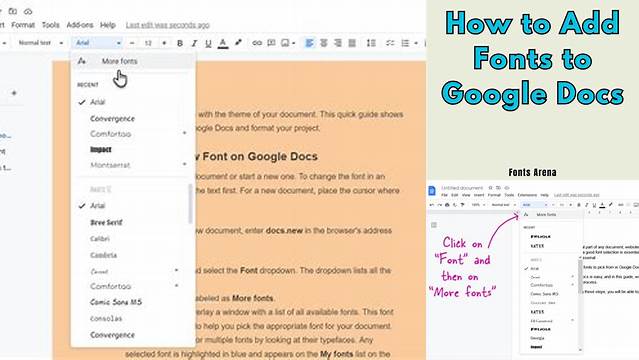
Add Fonts To Google Docs: A Reddit Guide
Hey guys! Ever feel like your Google Docs are looking a little… bland? Yeah, me too. Sometimes the default fonts just don't cut it, right? You want something with a little more personality, something that screams you. Well, you're in luck! Adding fonts to Google Docs is totally doable, and I'm here to walk you through it, especially drawing from the collective wisdom of Reddit. Let's dive in and make those documents pop!
1. Understanding Google Docs Fonts
Before we jump into adding new fonts, let's quickly chat about what's already available. Google Docs comes with a decent selection of fonts, but let's be honest, they're not always the most exciting. Knowing what's already there helps you appreciate the new fonts you're about to add even more. Think of it like this: you need to know the basics before you can truly appreciate the advanced stuff. So, take a peek at the default fonts, see what you like, and then get ready to expand your horizons. You can find the font selection in the toolbar, usually next to the font size option. Familiarize yourself with the names and styles – it’s your foundation for better typography. Remember, every great design starts with understanding the tools at your disposal!
2. Accessing the "More Fonts" Menu
The gateway to font heaven! To add new fonts, you need to access the "More Fonts" menu. It's super easy to find. Just click on the font dropdown menu in your Google Docs toolbar. Scroll all the way down, and you'll see "More fonts" at the bottom. Click it, and bam! You're in. This opens up a whole new world of typographic possibilities. The "More fonts" menu is where you'll browse, search, and add fonts to your Google Docs. Think of it as your personal font library, just waiting to be explored. It’s a straightforward process, but it's the key to unlocking a more personalized and visually appealing document. So, don't be shy, click that "More fonts" button and let the adventure begin!
3. Browsing Available Fonts
Okay, now for the fun part: browsing! The "More Fonts" menu shows you a huge list of fonts. You can scroll through them all (good luck with that, there are tons!), or you can use the search bar to find something specific. Google has categorized the fonts, which makes browsing easier if you know what type of font you want. Are you looking for a serif font for a formal document? Or maybe a sans-serif for something modern and clean? Play around, experiment, and see what catches your eye. Remember, the goal is to find fonts that enhance your document and make it more readable and visually appealing. The world of typography is vast and exciting, so take your time and enjoy the journey of discovery!
4. Searching for Specific Fonts
Got a particular font in mind? The search bar is your best friend. Just type in the name of the font, and Google Docs will find it for you (if it's available, of course). This is super handy if you've seen a font you like somewhere else and want to use it in your document. Keep in mind that not all fonts are available on Google Docs, but the selection is pretty extensive. If you can't find the exact font you're looking for, try searching for something similar. There are often variations and alternatives that can achieve the same look and feel. So, don't be afraid to experiment and explore! The search bar is your shortcut to typographic bliss.
5. Adding Fonts to "My Fonts"
Found a font you love? Awesome! Now you need to add it to your "My Fonts" list. In the "More Fonts" menu, simply click on the font you want to add. A little checkmark will appear next to it, indicating that it's been added to your collection. Your “My fonts” section is a curated list of fonts that you have selected for easy access. This saves you time from having to search for your favorite fonts every time you start a new document. It's like creating your own personal font library within Google Docs. Once you've added a font, it will appear in the font dropdown menu in your document, ready for you to use. It’s a simple click, but it makes a world of difference in streamlining your workflow and keeping your favorite fonts at your fingertips!
6. Using Your New Fonts
Alright, the moment of truth! Your new fonts are added, now what? Simply go back to your document, select the text you want to change, and choose your new font from the font dropdown menu. Voila! Your text is now rocking your chosen font. Remember, readability is key. Make sure your font choice complements your content and doesn't make it harder to read. Experiment with different font sizes and styles to achieve the perfect look. Using your new fonts is all about expressing your creativity and making your document stand out. So, go ahead, play around, and have fun! Your documents are about to get a whole lot more stylish.
7. Font Pairing Tips
Font pairing is an art! Combining different fonts can create a visually appealing and professional look. A good rule of thumb is to pair a serif font with a sans-serif font. For example, you could use a serif font for your headings and a sans-serif font for your body text. This creates contrast and makes your document easier to read. You can also use different weights and styles of the same font family to create visual interest. Experiment with different combinations and see what works best for you. There are tons of resources online that offer font pairing suggestions, so don't be afraid to do some research. With a little practice, you'll be a font pairing pro in no time!
8. Removing Fonts from "My Fonts"
Changed your mind about a font? No problem! You can easily remove fonts from your "My Fonts" list. Just go back to the "More Fonts" menu, and uncheck the font you want to remove. It will disappear from your "My Fonts" list, and you're good to go. This is useful if you've added a lot of fonts and want to declutter your list. It also allows you to keep your font selection fresh and relevant. Removing fonts is just as easy as adding them, so don't be afraid to experiment and change things up. Your font library should be a reflection of your current needs and preferences. So, keep it tidy and up-to-date!
9. Google Docs Font Limitations
While Google Docs offers a good selection of fonts, there are some limitations. You can't upload your own custom fonts directly to Google Docs. This can be a bummer if you have a specific font that you want to use. However, there are workarounds. You can use Google Fonts, which is a free library of fonts that are compatible with Google Docs. You can also use a third-party app to convert your custom font to a Google Font. Keep in mind that some fonts may not display correctly in Google Docs, so it's always a good idea to test them out before you start working on your document. Despite these limitations, Google Docs offers a versatile and user-friendly font management system.
10. Using Google Fonts
Google Fonts is a treasure trove of free, open-source fonts that you can use in your Google Docs. The best part? They're all compatible with Google Docs, so you don't have to worry about any formatting issues. To access Google Fonts, simply go to the "More Fonts" menu in Google Docs. The fonts listed there are all Google Fonts. You can browse, search, and add them to your "My Fonts" list just like any other font. Google Fonts offers a wide variety of styles and weights, so you're sure to find something that suits your needs. Plus, they're constantly adding new fonts to the library, so there's always something new to discover. Using Google Fonts is a great way to expand your font options and create visually stunning documents.
11. Reddit's Favorite Google Docs Fonts
Reddit users have some strong opinions about fonts! Some popular choices include Montserrat, Open Sans, and Lato. These fonts are clean, modern, and easy to read. They're also versatile enough to be used in a variety of documents. Reddit is a great place to get font recommendations and see how other people are using fonts in their Google Docs. You can also find tips and tricks for font pairing and formatting. So, if you're looking for inspiration, head over to Reddit and see what the community has to say. You might just discover your new favorite font!
12. Troubleshooting Font Issues
Sometimes, fonts don't display correctly in Google Docs. This can be due to a variety of reasons, such as font compatibility issues or browser problems. If you're experiencing font issues, try clearing your browser's cache and cookies. You can also try using a different browser or updating your current browser to the latest version. If the problem persists, try using a different font or contacting Google Docs support for assistance. Troubleshooting font issues can be frustrating, but with a little patience, you can usually find a solution. Remember, the goal is to create a visually appealing and readable document, so don't give up!
13. Font Size and Readability
Font size plays a crucial role in readability. A font that's too small can be difficult to read, while a font that's too large can be distracting. The ideal font size depends on the font itself and the context of your document. A good rule of thumb is to use a font size of 11 or 12 points for body text. For headings, you can use a larger font size, such as 14 or 16 points. Experiment with different font sizes and see what works best for you. You can also use the zoom feature in Google Docs to adjust the size of the text on your screen. Remember, readability is key, so make sure your font size is appropriate for your audience.
14. Font Styles: Bold, Italic, and Underline
Font styles like bold, italic, and underline can be used to emphasize certain words or phrases in your document. Bold is used to make text stand out, italic is used to indicate emphasis or foreign words, and underline is used to highlight important information. However, it's important to use these styles sparingly. Overusing them can make your document look cluttered and unprofessional. Use bold and italic to draw attention to key words or phrases, and use underline to highlight links or important points. When used correctly, font styles can enhance your document and make it more engaging.
15. Customizing Default Fonts
Google Docs allows you to customize the default fonts for your documents. This means that you can set your preferred font, font size, and font style, and Google Docs will automatically use those settings for all new documents. To customize your default fonts, go to the "Tools" menu and select "Preferences." In the Preferences dialog box, you can choose your default font, font size, and font style. This is a great way to save time and ensure that all of your documents have a consistent look and feel. Customizing your default fonts is a simple but effective way to personalize your Google Docs experience.
16. Using Fonts for Different Document Types
The best font to use depends on the type of document you're creating. For formal documents, such as reports and essays, it's best to use a serif font like Times New Roman or Georgia. These fonts are classic and professional. For informal documents, such as emails and memos, you can use a sans-serif font like Arial or Helvetica. These fonts are modern and clean. For creative documents, such as brochures and flyers, you can use a more decorative font. However, it's important to choose a font that's easy to read and appropriate for your audience. When choosing a font, consider the purpose of your document and the message you want to convey.
17. The Importance of Typography
Typography is the art and technique of arranging type to make written language legible, readable, and appealing when displayed. Good typography can enhance your document and make it more engaging, while bad typography can detract from your message and make it difficult to read. When choosing fonts, consider the overall design of your document and the message you want to convey. Pay attention to font size, font style, and font pairing. Use white space effectively to create visual balance and improve readability. Typography is an essential element of design, so take the time to learn the basics and apply them to your Google Docs.
18. Exploring Font Categories: Serif, Sans-Serif, and More
Fonts are typically categorized into different types based on their characteristics. The two main categories are serif and sans-serif. Serif fonts have small decorative strokes at the end of each letter, while sans-serif fonts do not. Serif fonts are typically used for formal documents, while sans-serif fonts are used for informal documents. There are also other font categories, such as script fonts, which are designed to resemble handwriting, and decorative fonts, which are used for creative projects. Each font category has its own unique look and feel, so experiment with different categories to find the perfect font for your document. Understanding font categories is essential for choosing the right font for your needs.
19. Font Licensing and Usage Rights
When using fonts, it's important to be aware of font licensing and usage rights. Some fonts are free to use for both personal and commercial purposes, while others require a license. Before using a font, check the license to make sure you're allowed to use it for your intended purpose. You can usually find font licensing information on the font designer's website or in the font's documentation. Using a font without the proper license can result in legal consequences, so it's important to do your research and comply with the terms of the license. Font licensing can be complex, but it's essential for respecting the rights of font designers and avoiding legal issues.
20. Using Font Management Tools
Font management tools can help you organize and manage your fonts. These tools allow you to preview fonts, activate and deactivate fonts, and resolve font conflicts. They can also help you find and install new fonts. There are many different font management tools available, both free and paid. Some popular options include FontBase, NexusFont, and RightFont. Using a font management tool can save you time and effort when working with fonts, especially if you have a large font library. Font management tools are a valuable asset for anyone who works with fonts regularly.
21. Embedding Fonts in PDFs
When creating a PDF document, it's important to embed the fonts in the PDF file. This ensures that the fonts will display correctly on any computer, even if the user doesn't have the fonts installed. To embed fonts in a PDF, use the PDF creation tool's font embedding option. The exact steps vary depending on the tool you're using, but it's usually a simple process. Embedding fonts is essential for ensuring that your PDF documents look their best on all devices. Without font embedding, your documents may display with incorrect fonts or missing characters.
22. The Psychology of Fonts
Fonts can evoke different emotions and associations. Serif fonts often convey a sense of tradition and authority, while sans-serif fonts convey a sense of modernity and simplicity. Script fonts can evoke a sense of elegance and sophistication, while decorative fonts can evoke a sense of fun and creativity. When choosing fonts, consider the psychological impact you want to have on your audience. Choose fonts that align with your brand and the message you want to convey. Understanding the psychology of fonts can help you create more effective and engaging documents.
23. Font Alternatives and Similar Styles
If you can't find the exact font you're looking for, you can often find font alternatives that have a similar style. There are many websites and tools that can help you find font alternatives. These tools allow you to search for fonts based on their characteristics, such as serif or sans-serif, and they will suggest similar fonts that you can use. Using font alternatives is a great way to expand your font options and find the perfect font for your document. Don't be afraid to experiment with different font alternatives and see what works best for you.
24. Designing with Limited Font Choices
Even with a limited selection of fonts, you can still create visually appealing and effective designs. The key is to use the fonts you have creatively and strategically. Experiment with different font sizes, font styles, and font pairings. Use white space effectively to create visual balance and improve readability. Focus on the overall design of your document and the message you want to convey. With a little creativity, you can create stunning designs even with limited font choices. Remember, design is about more than just fonts; it's about creating a cohesive and engaging visual experience.
25. Creating a Font Style Guide
A font style guide is a document that outlines the fonts you use in your documents and how you use them. It specifies the font family, font size, font style, and font color for different elements of your document, such as headings, body text, and captions. Creating a font style guide ensures consistency in your documents and helps to maintain a professional look and feel. It also makes it easier for others to collaborate on your documents, as they can refer to the style guide for guidance on font usage. A font style guide is a valuable asset for any organization or individual who creates a lot of documents.
26. Using Web Fonts in Google Docs
While Google Docs primarily uses Google Fonts, you can also incorporate web fonts into your documents using various workarounds. One method involves using a browser extension that allows you to inject custom CSS into Google Docs, enabling you to use web fonts hosted on services like Adobe Fonts or self-hosted fonts. However, this approach may require some technical knowledge and might not be fully supported by Google Docs. Another option is to create images with your desired web fonts and insert them into your document, but this method is less ideal for text-heavy content. Keep in mind that using web fonts in Google Docs can affect document compatibility and printing, so it's essential to test thoroughly before finalizing your work.
27. Font Recommendations for Resumes
Choosing the right font for your resume is crucial for making a positive impression on potential employers. Opt for professional and readable fonts that convey clarity and sophistication. Some excellent choices include Times New Roman, Arial, Calibri, and Garamond. Avoid overly decorative or unconventional fonts that might distract from your qualifications. Ensure that your font size is appropriate for readability, typically between 10 and 12 points. Consistent use of fonts throughout your resume demonstrates attention to detail and professionalism. Remember, your resume is a reflection of your personal brand, so select fonts that align with your industry and career goals.
28. Fonts and Accessibility Considerations
When selecting fonts, it's essential to consider accessibility for all readers, including those with visual impairments. Choose fonts with clear and distinct letterforms that are easy to read. Avoid fonts with overly thin strokes or elaborate details that can be difficult to discern. Ensure that your font size is large enough for comfortable reading, typically at least 12 points. Provide sufficient contrast between text and background colors to enhance readability. Use bolding and other formatting techniques sparingly to emphasize key information without overwhelming the reader. By prioritizing accessibility, you can ensure that your documents are inclusive and user-friendly for everyone.
29. Font Trends and Future of Typography
Font trends are constantly evolving, influenced by design aesthetics, technology advancements, and cultural shifts. In recent years, there has been a growing interest in geometric sans-serif fonts, variable fonts, and hand-drawn fonts. Variable fonts offer flexibility and customization options, allowing designers to fine-tune font weights, widths, and styles. Hand-drawn fonts add a personal and authentic touch to designs. As technology continues to advance, we can expect to see even more innovative and experimental font designs. The future of typography is exciting, with endless possibilities for creativity and expression.
30. Collaborate with Different Fonts
Collaborating on documents with different fonts can sometimes lead to formatting inconsistencies. To ensure a seamless collaborative experience, it's best to establish a consistent font style guide for all contributors to follow. This helps maintain a cohesive look and feel throughout the document. Before sharing a document, review and standardize font usage to avoid any discrepancies. Communicate with collaborators about font preferences and guidelines to ensure everyone is on the same page. By working together to maintain font consistency, you can create professional and polished collaborative documents.